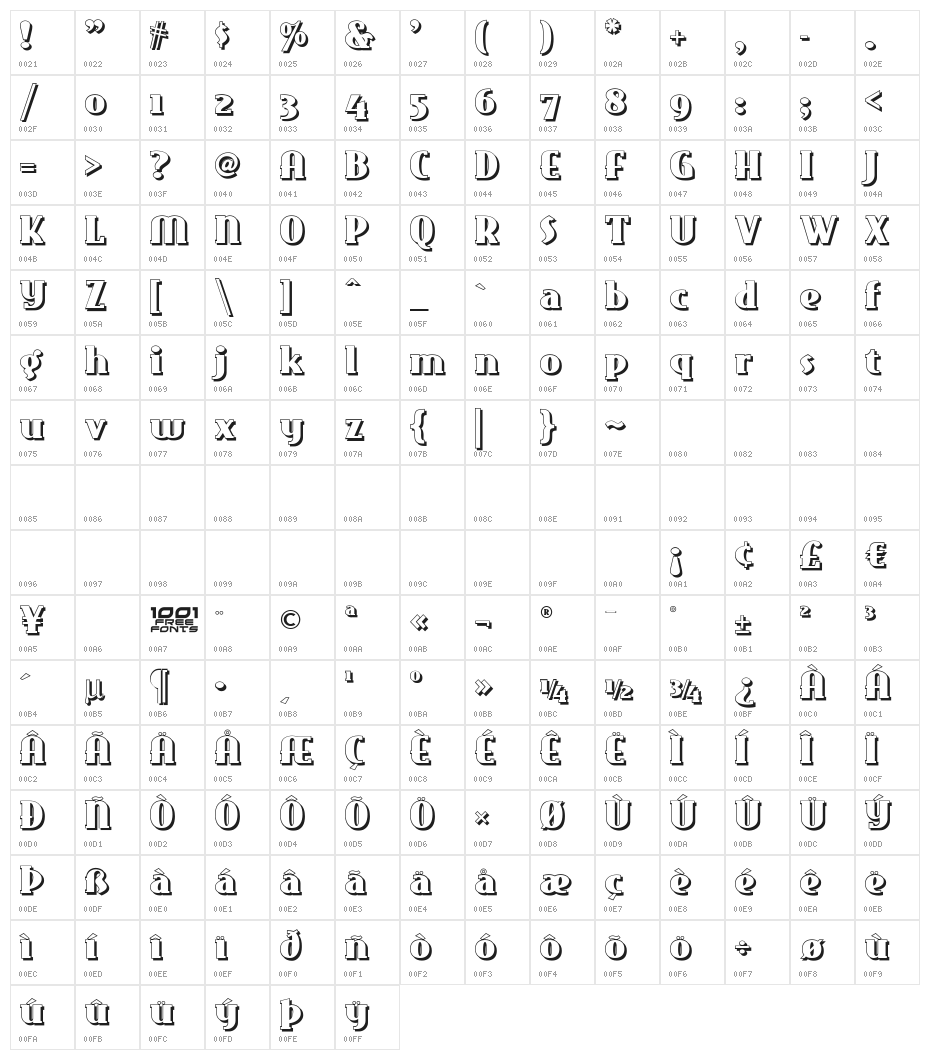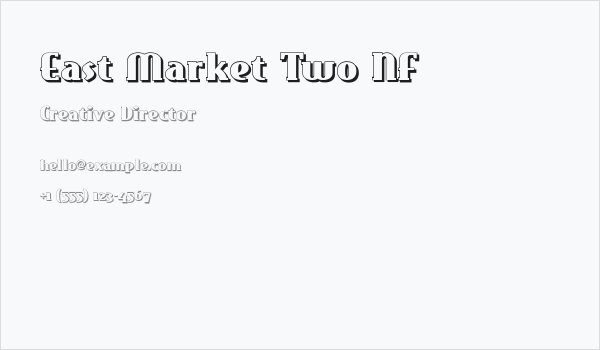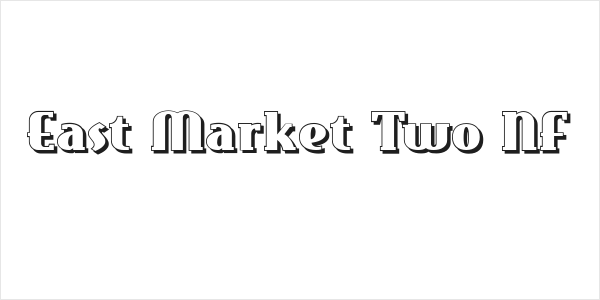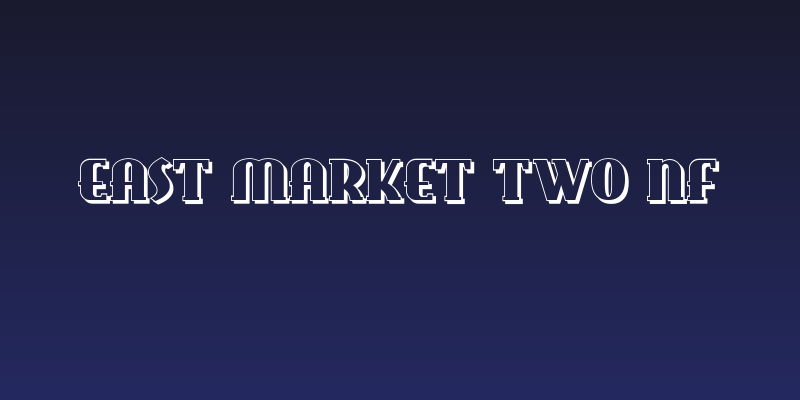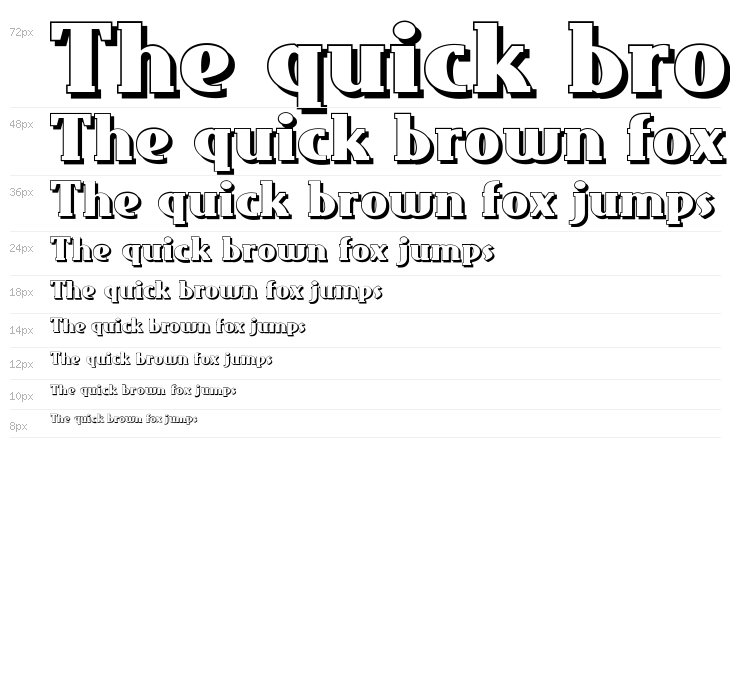
East Market Two NF Font
East Market Two NF Description
This font features a bold and striking design with a three-dimensional effect. The characters have a strong presence, with thick strokes and a shadow that gives them depth. The uppercase letters are particularly prominent, while the lowercase letters maintain the same boldness and style. The numbers and special characters are equally bold, ensuring consistency throughout. This font is ideal for making a statement, with its decorative and eye-catching style that draws attention.
| Proposed Projects | Ideal for posters, headlines, branding, and any design that requires a bold, attention-grabbing font. |